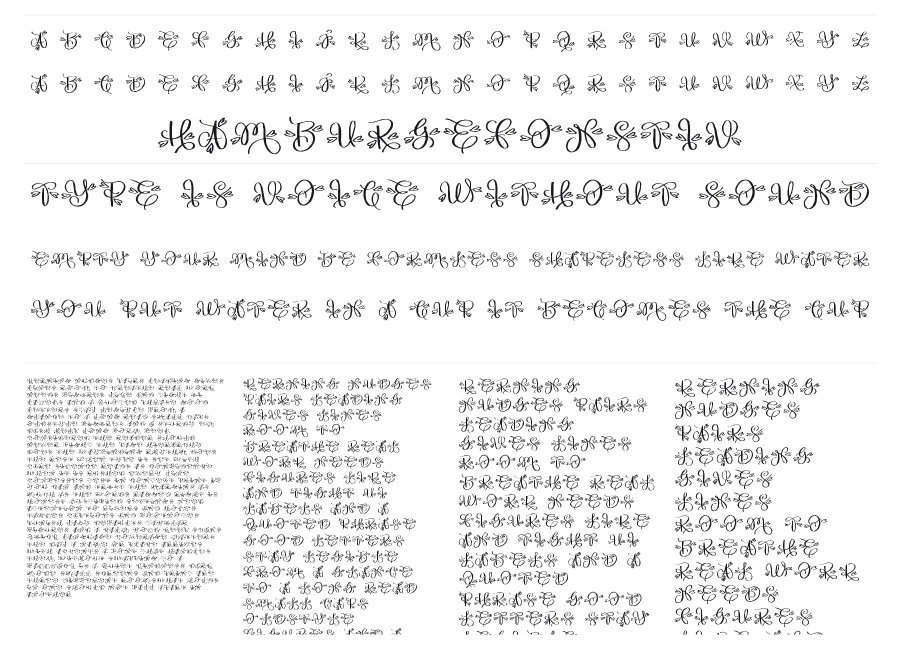
Monogram A
Monogram A is an ornamental initial font where every capital letter is wrapped in hand-drawn florals, leaves, and vine details. The thin calligraphic strokes and botanical embellishments give each character the quality of a hand-engraved wedding monogram. It works best at large sizes where the intricate detail can breathe.